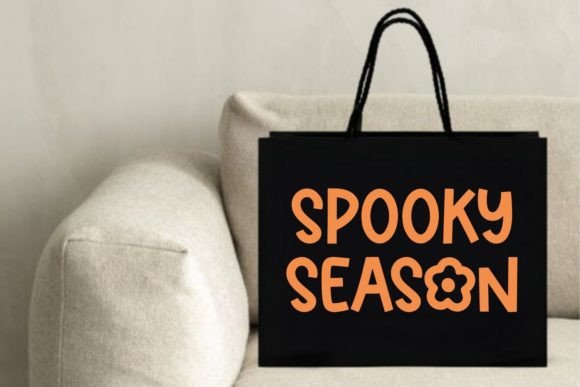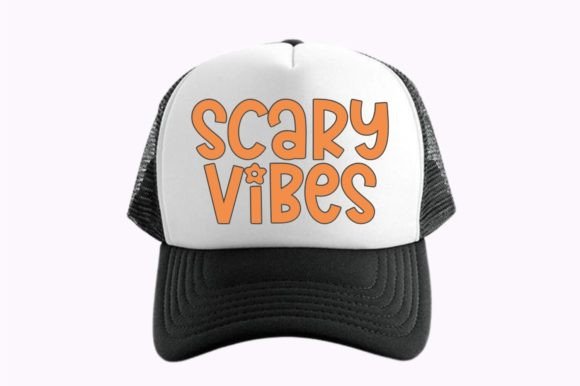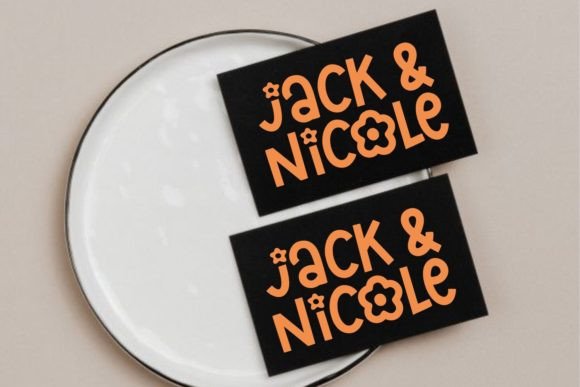
Spooky Flower Font
Unleash your creativity with the Spooky Flower font! With its undeniably cute charm and whimsical flair, it’s the perfect font to bring any design to life. It not only captivates the essence of Halloween fun but also boasts a strong, distinct style that’s perfect for branding, logo creation, and clothing graphics. The Spooky Flower is sure to make your designs standout whether adorned on t-shirts, hats, or transformed into unique stickers. Plus, it adds a playful touch to greeting cards and Halloween celebrations. Its unique aesthetic ensures a striking visual appeal that adds character to every creative project.